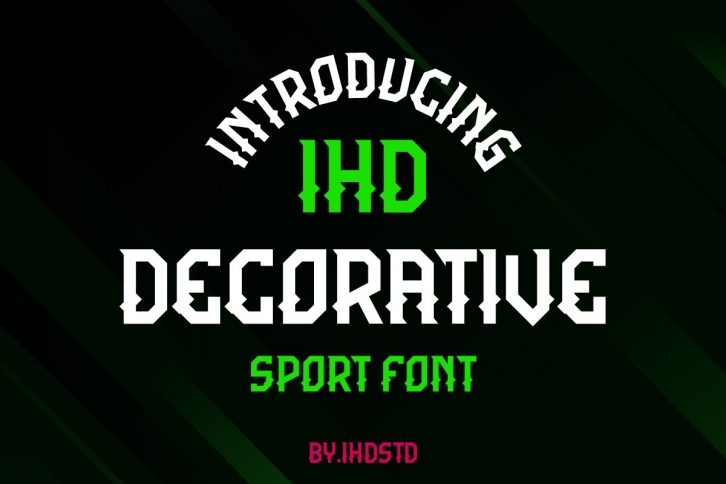
IHD Decorative is a great font that was designed by IHDSTD. Imagine the amount of combinations you can create using this font! The archive is 12.70 MB and it was released on December 28, 2021. IHD Decorative looks beautiful on wedding invitations, greeting cards, logos, posters, labels, t-shirt designs, logos, business cards and is perfect for use in ink or watercolor works, fashion, magazines, packaging and food menus, children's books and more!